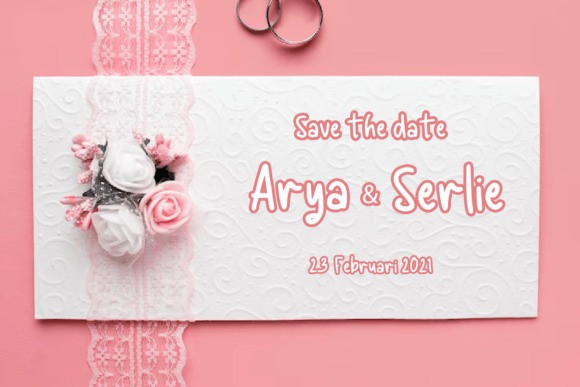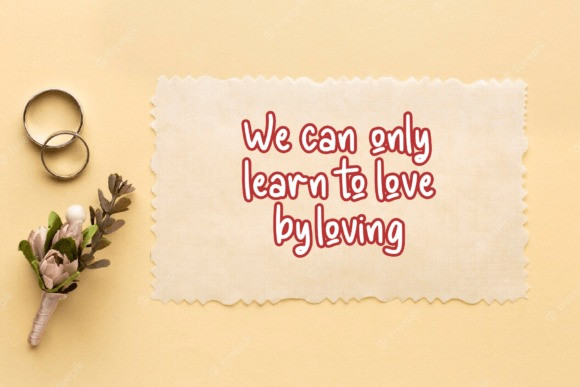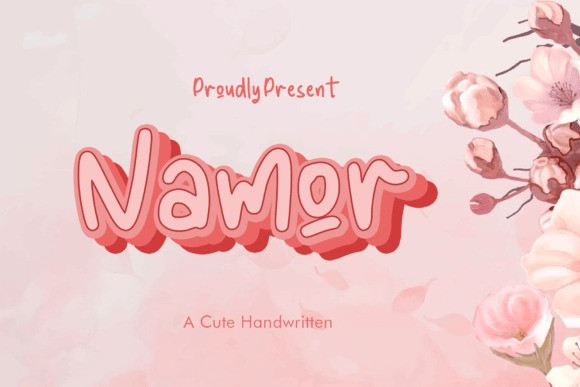
Namor Font
Namor Font is a stunning display font with bold, distinctive curves and a modern touch. Perfect for eye-catching headlines, logos, and short texts. This font offers a unique and attractive look that will elevate any design project to the next level.